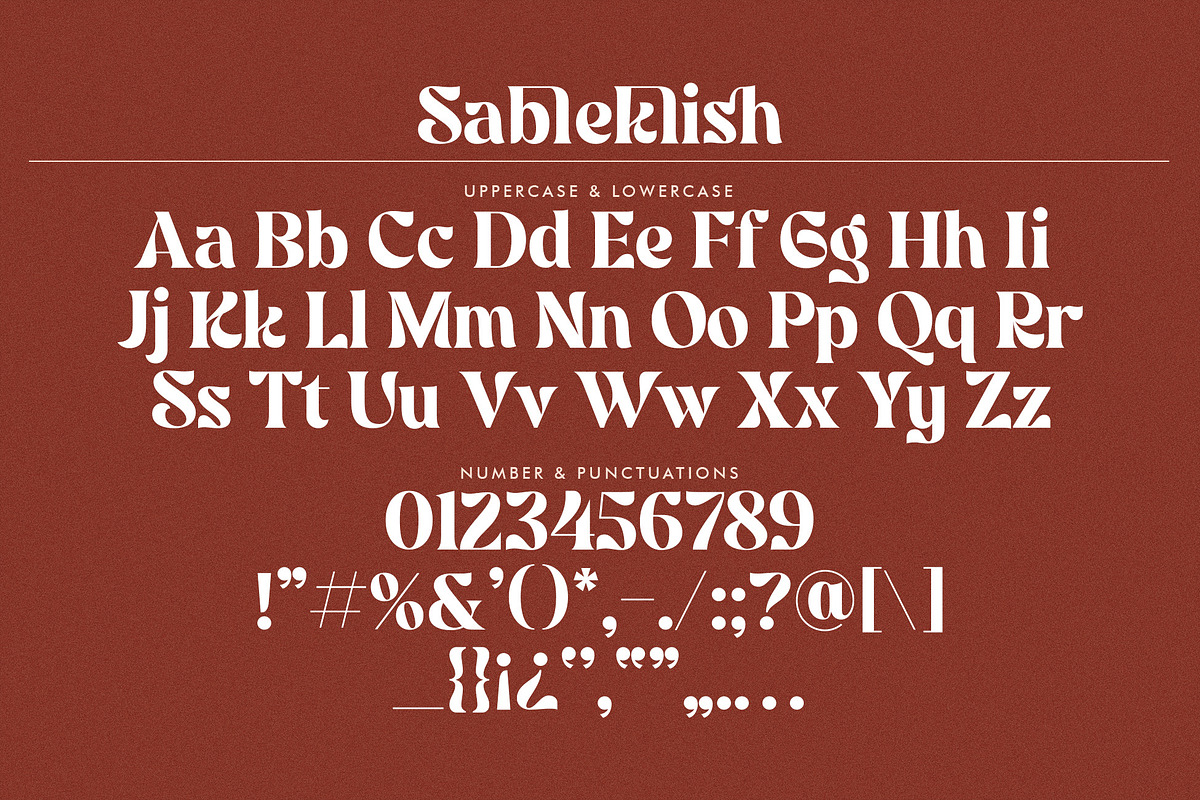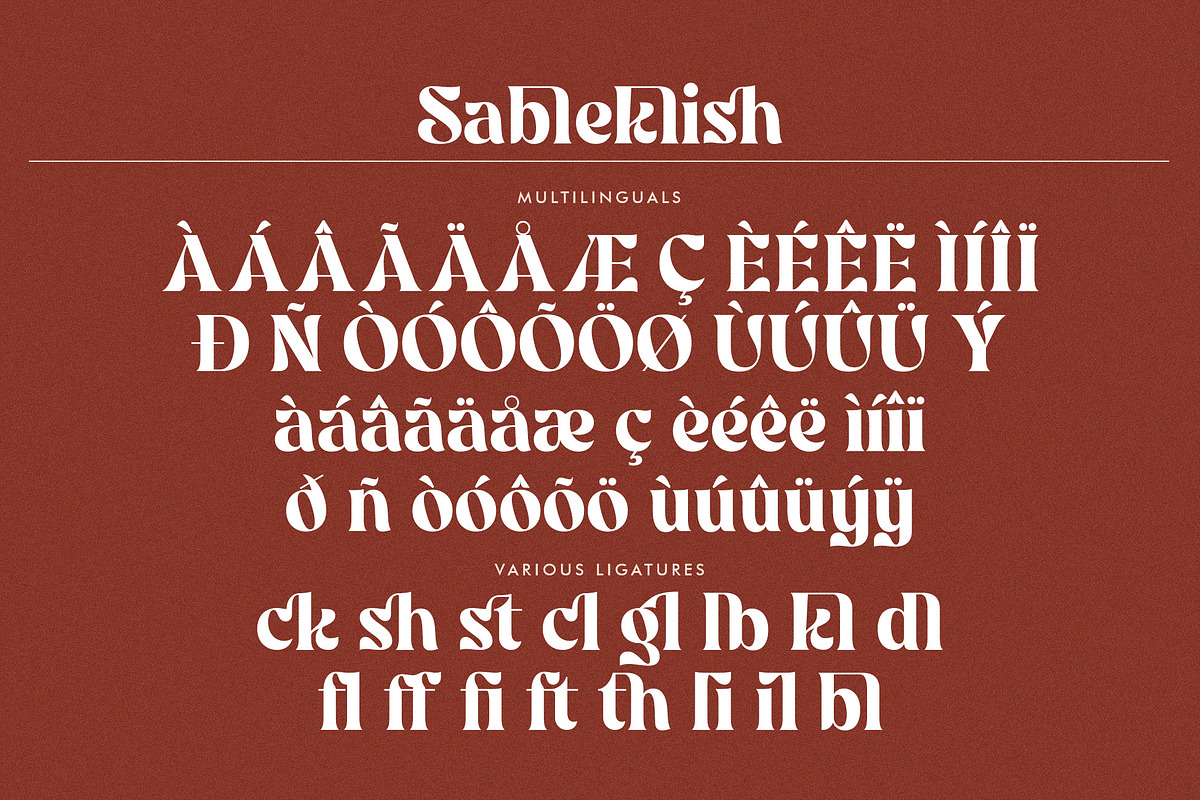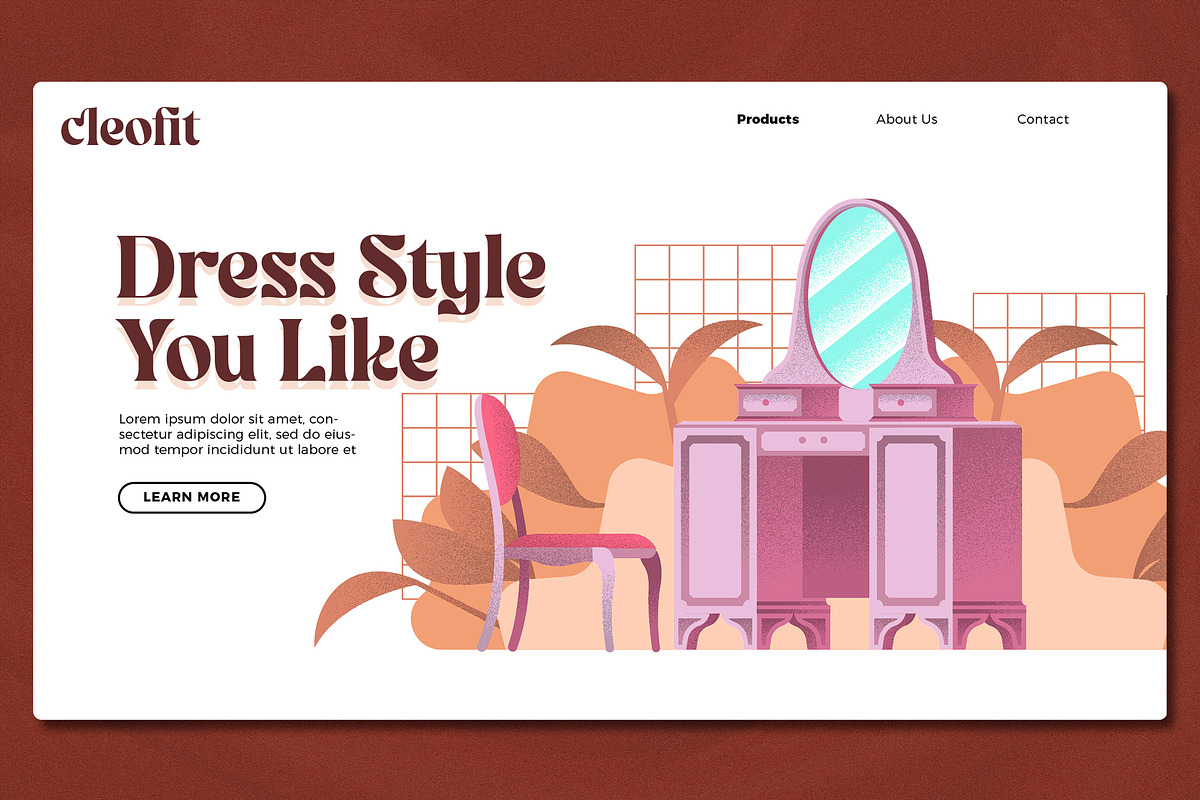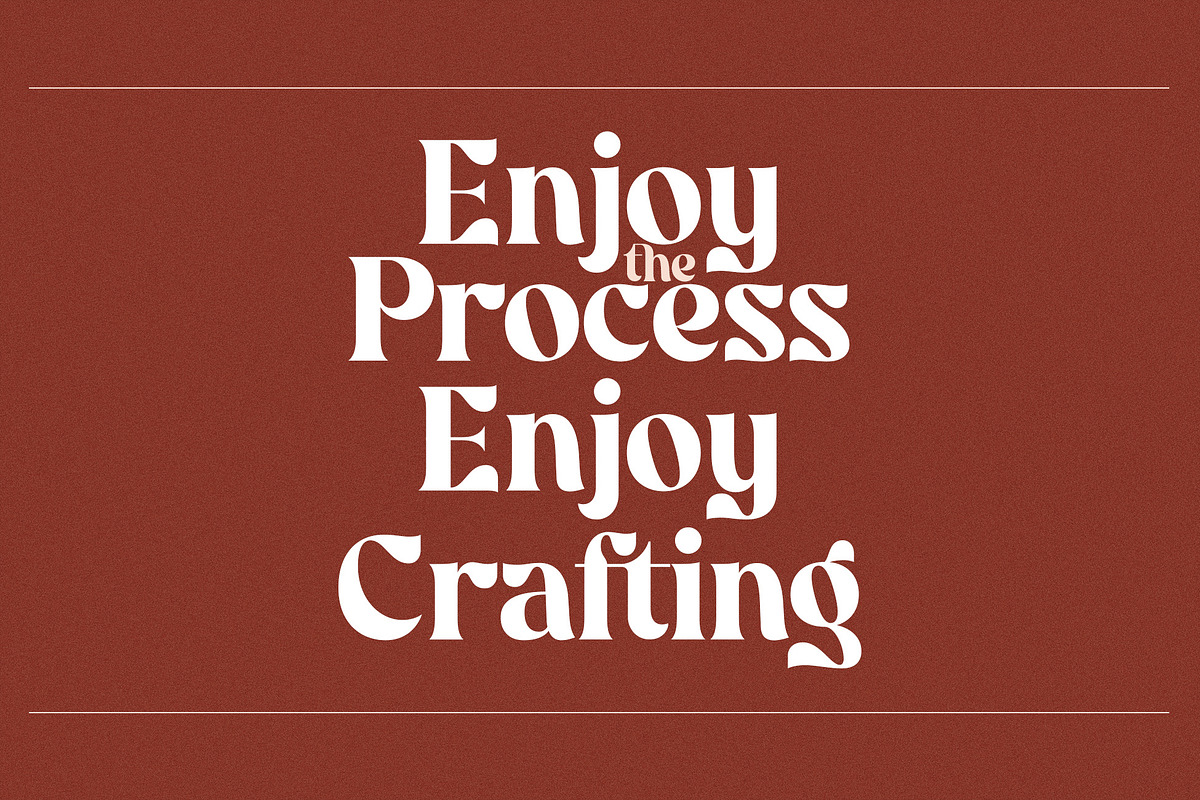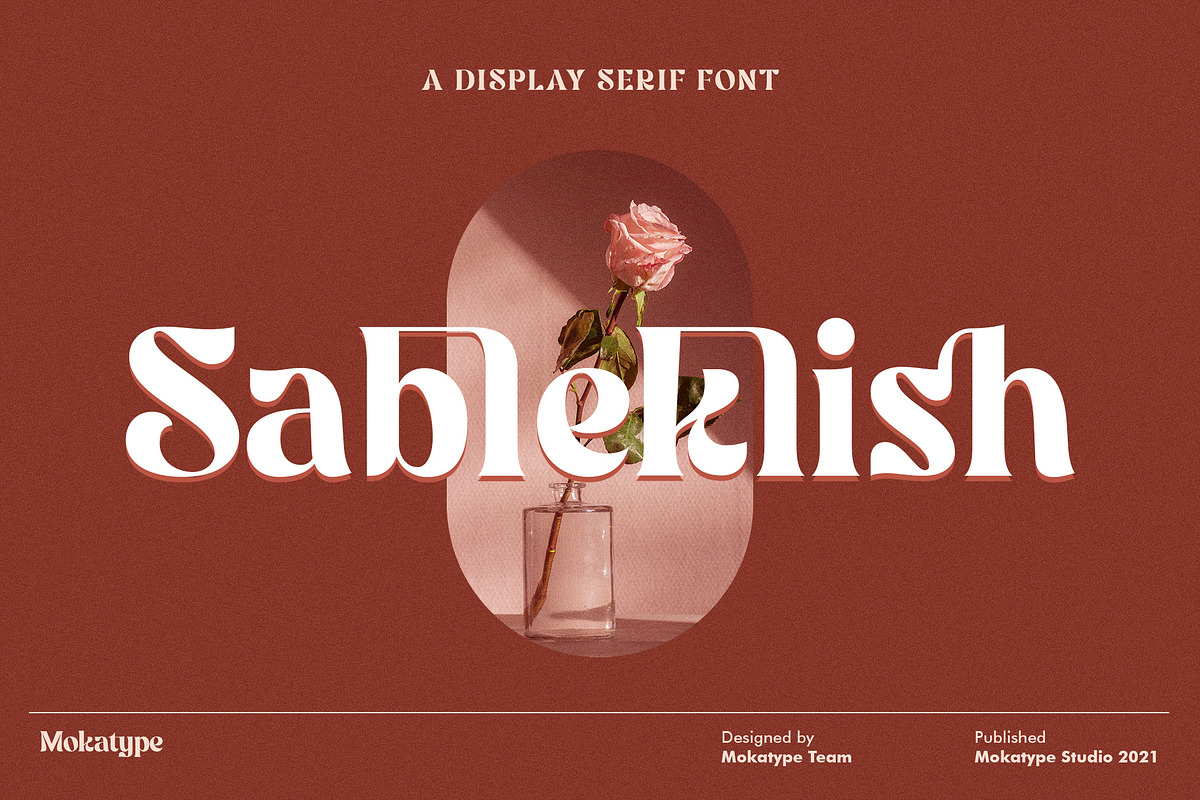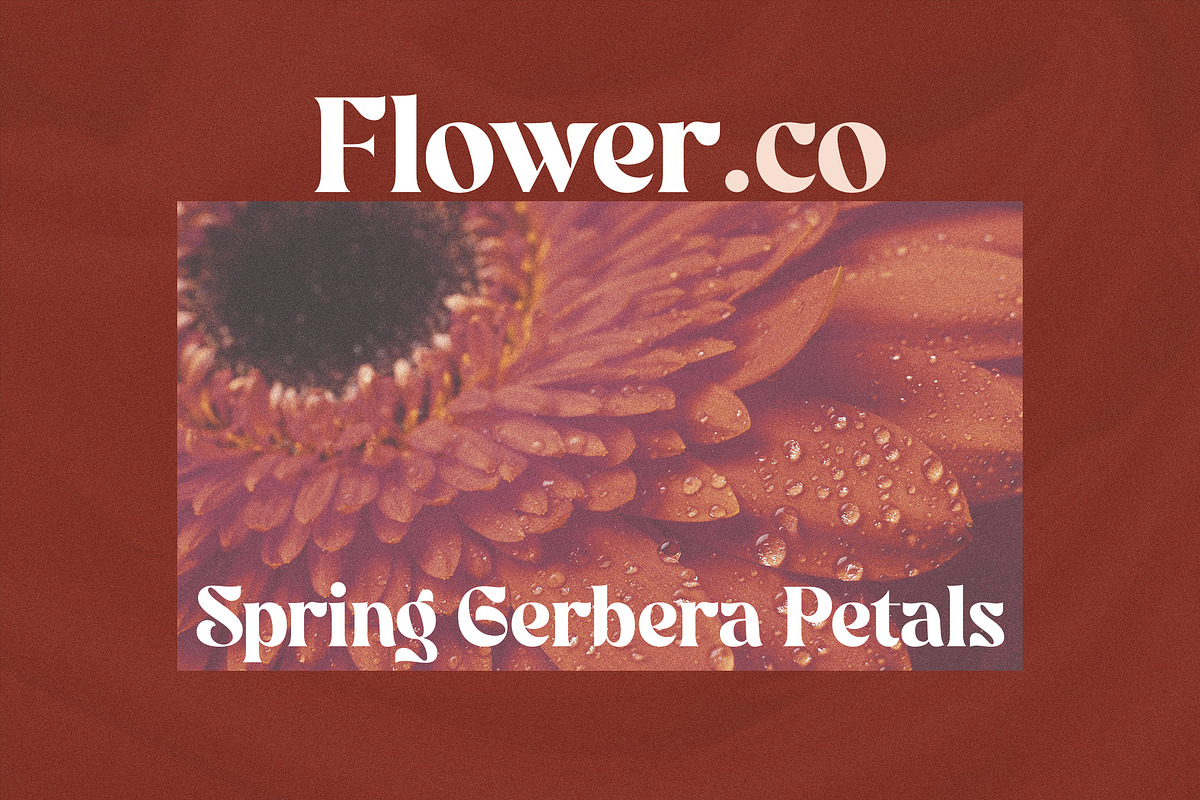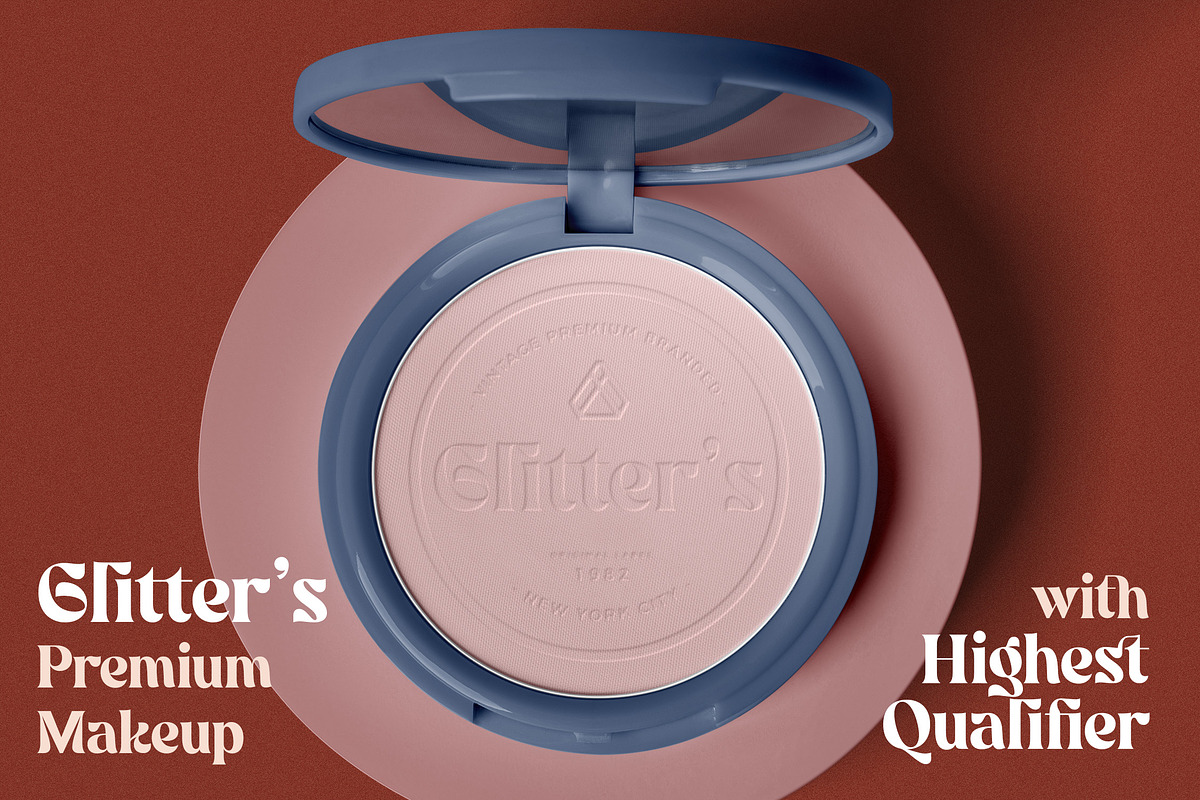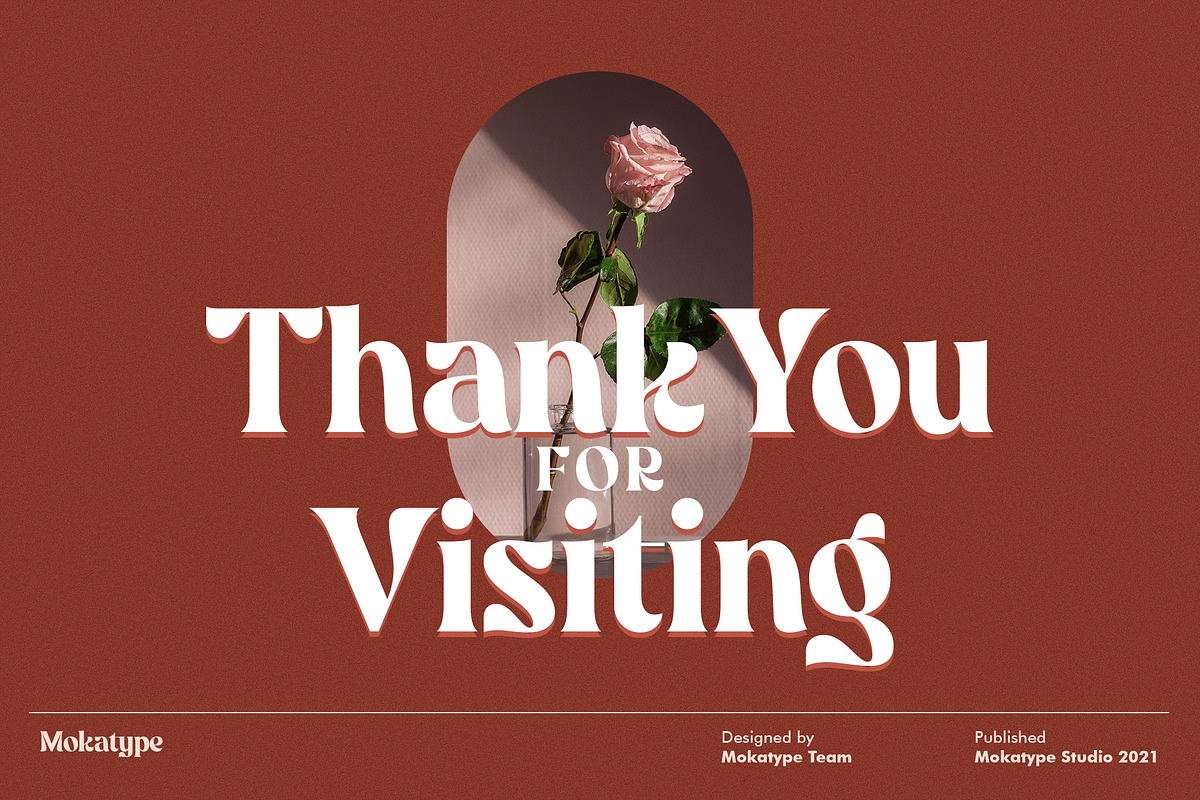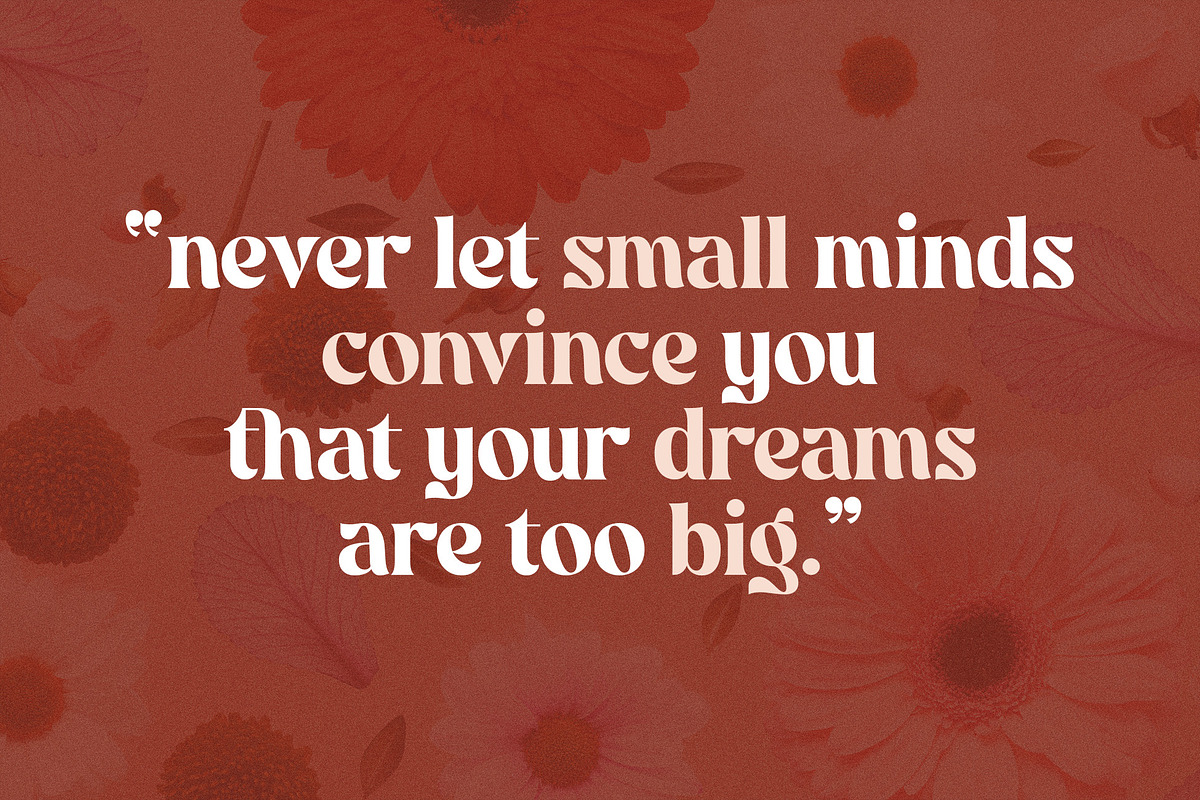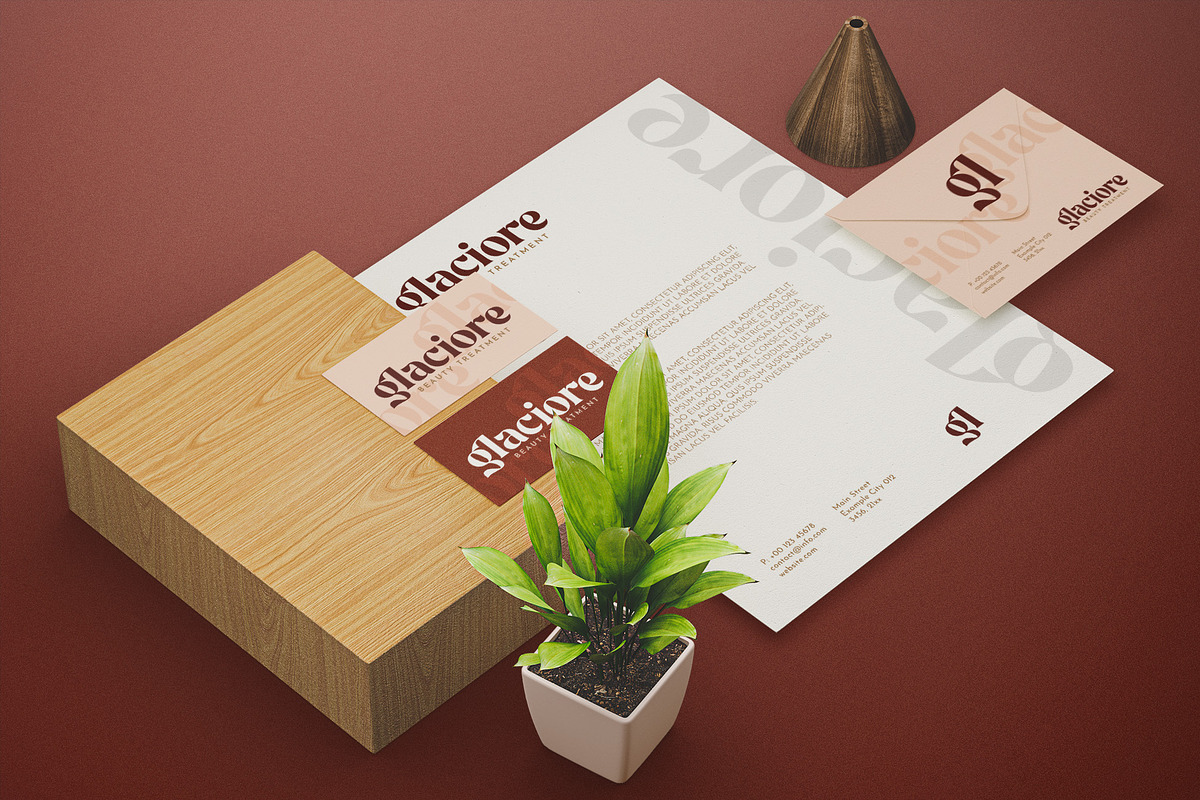
Sableklish - Unique Serif Display
Sableklish - Unique Serif Display is an elegant and unique font that uses ligatures to smoothly link letters. Perfect for adding a unique twist to word-mark logos. Sableklish has ligatures & Alternate as well making it super fantastic. Ligature can be turned off if required standard writing needs.